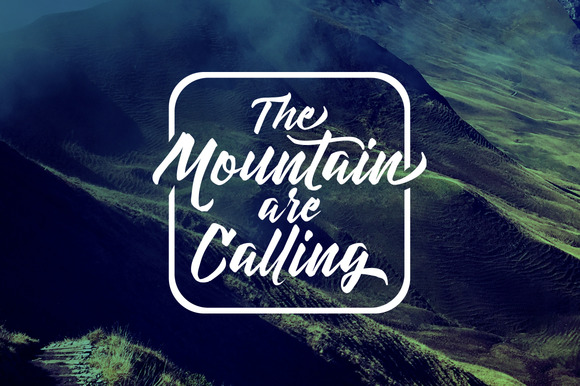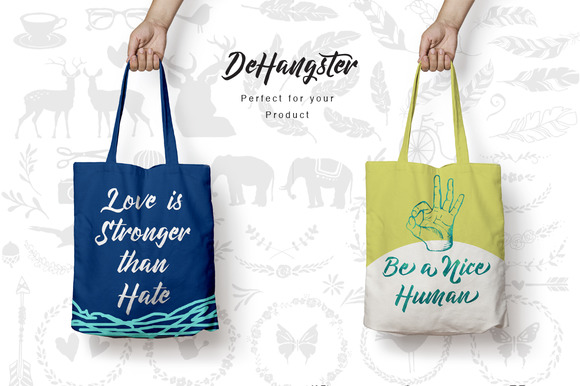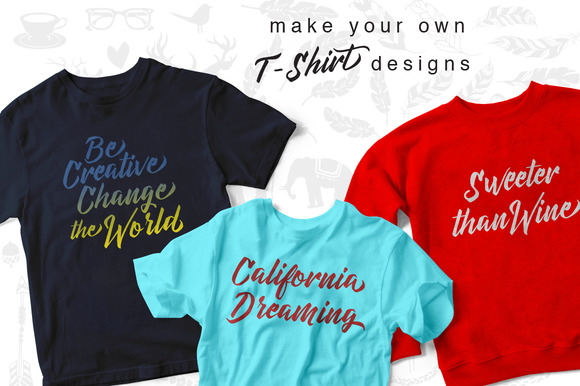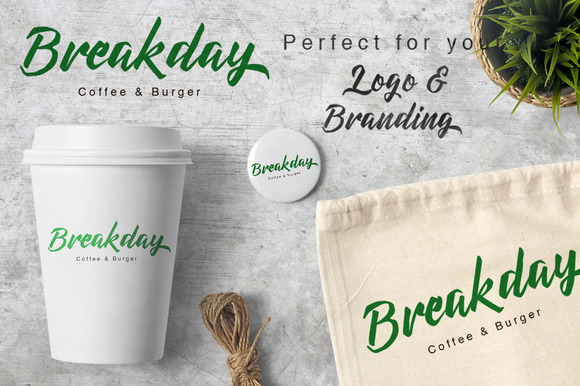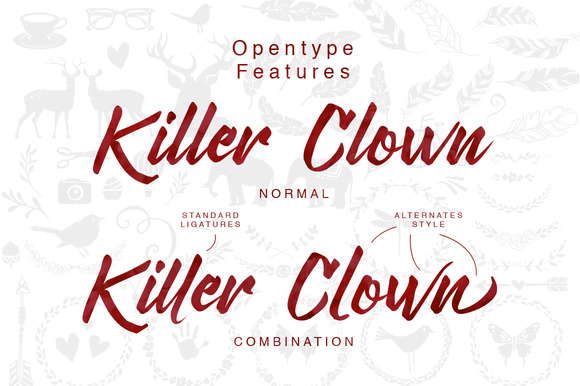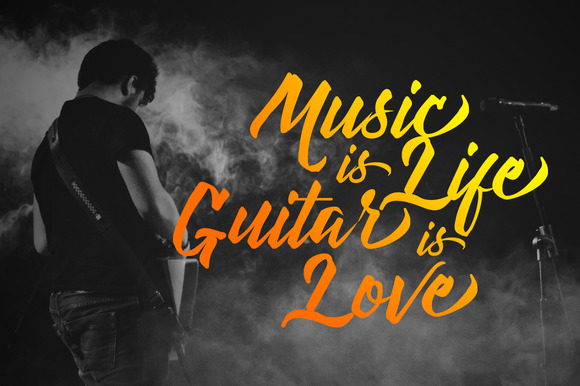
The Quest for the Perfect Handwritten Font: Discovering DeHangster
I’ll never forget the time I was working on a branding project for a local craft fair, and I just couldn’t find the right font to capture the essence of handmade, small-batch goods. My client wanted something that felt personal, yet polished. I spent hours scouring font libraries and marketplaces, but nothing seemed quite right. That was until I stumbled upon DeHangster Typeface, a beautiful hand brush script typeface with a natural look that instantly resonated with my design sensibilities.
First Impressions: A Love at First Sight
As soon as I opened DeHangster in my design software, I knew I had found something special. The fluid strokes, the subtle imperfections, and the overall charm of this font had me hooked. Here’s what I love about DeHangster:
- ✨ Natural, hand-crafted feel: DeHangster has a distinctly human touch, making it perfect for designs that require a personal, artisanal feel.
- ✅ Highly legible: Despite its handwritten nature, DeHangster is surprisingly easy to read, even at smaller sizes.
- 💫 Versatile: This font can be used for a wide range of projects, from wedding invitations and branding materials to packaging and digital content.
A Few Quirks to Consider
While DeHangster has won my heart, it’s not without its quirks. Here are a few things to keep in mind:
- 🤔 Limited use in very small sizes: While DeHangster is legible, it may not be the best choice for very small text, such as body copy or captions.
- ⚠️ Some characters may require manual kerning: As with any handwritten font, you may need to adjust the kerning between certain characters to achieve optimal results.
- Experiment with OpenType features like ligatures and stylistic alternates to add visual interest to your text.
- Explore the Glyphs panel to access additional characters, ligatures, and stylistic alternates.
The Story Behind DeHangster
DeHangster was designed with the intention of capturing the essence of handwritten text in a digital format. The designer aimed to create a font that felt personal, yet polished, and could be used for a wide range of creative projects. While the exact inspiration behind DeHangster is unclear, it’s evident that the designer was driven by a passion for beautiful, handwritten typography.
| Is DeHangster suitable for body copy? | While DeHangster is legible, it’s best suited for headlines, titles, and short paragraphs. For longer body copy, consider using a more traditional serif or sans-serif font. |
| Does DeHangster support OpenType features? | Yes, DeHangster supports OpenType features like ligatures, stylistic alternates, and glyphs. Experiment with these features to add visual interest to your text. |